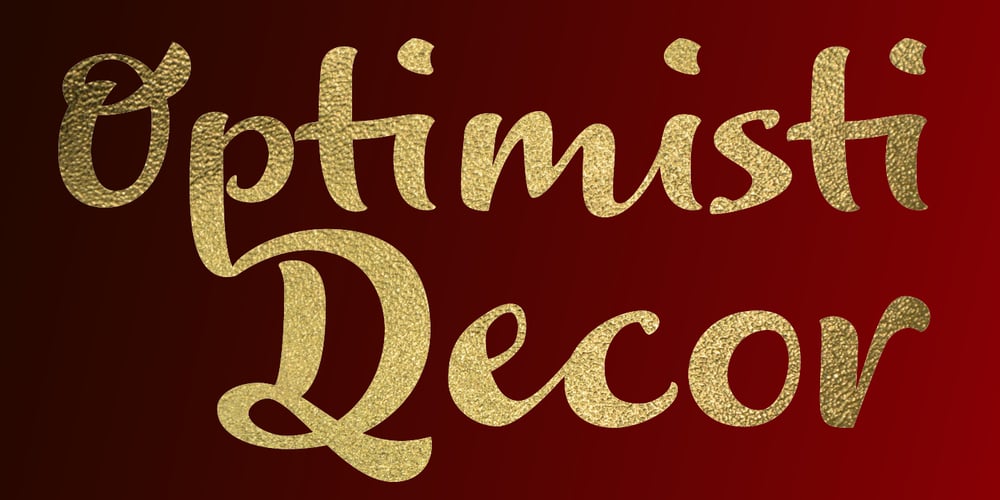
Optimisti
Optimisti font
Optimisti Font Family was designed by Julia Sysmäläinen and published by Juliasys. Optimisti contains 3 styles and family package options. Optimisti is Finnish for optimist – and it’s an optimistic, light-hearted feeling that this trio of handwriting fonts transfuses into all kinds messages and identities. Casual, playful and character-strong as they are, the three of them make a perfect team for headlines, slogans, teaser texts and brand naming. Besides the two original fonts – “Optimisti Smooth” and “Optimisti Sparkling” differing in outline structure and texture – “Optimisti Decor” now joined the game. Optimisti Decor is loaded with a multitude of artful elements that can convey a very festive atmosphere – or, on the contrary, ironically make fun of it. Its features are is especially striking when used in all-caps setting. Use the Optimists separately or together to make a humorous – or serious but always cordial impression in print, on the web, on packaging or even on your shopping bag … All Optimisti fonts have a Western European, a Central European and an Extended Cyrillic character set. They support approximately 100 languages.